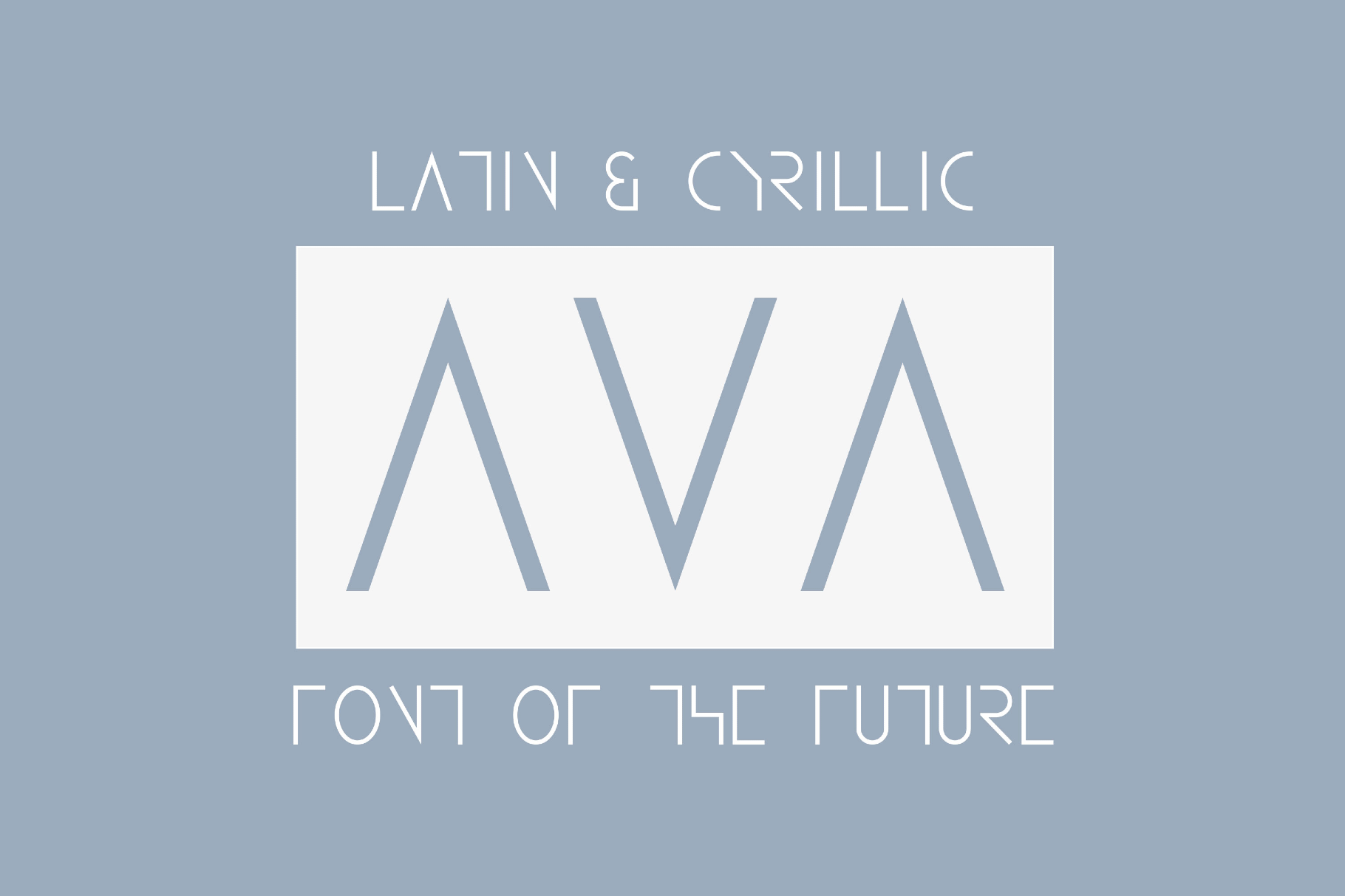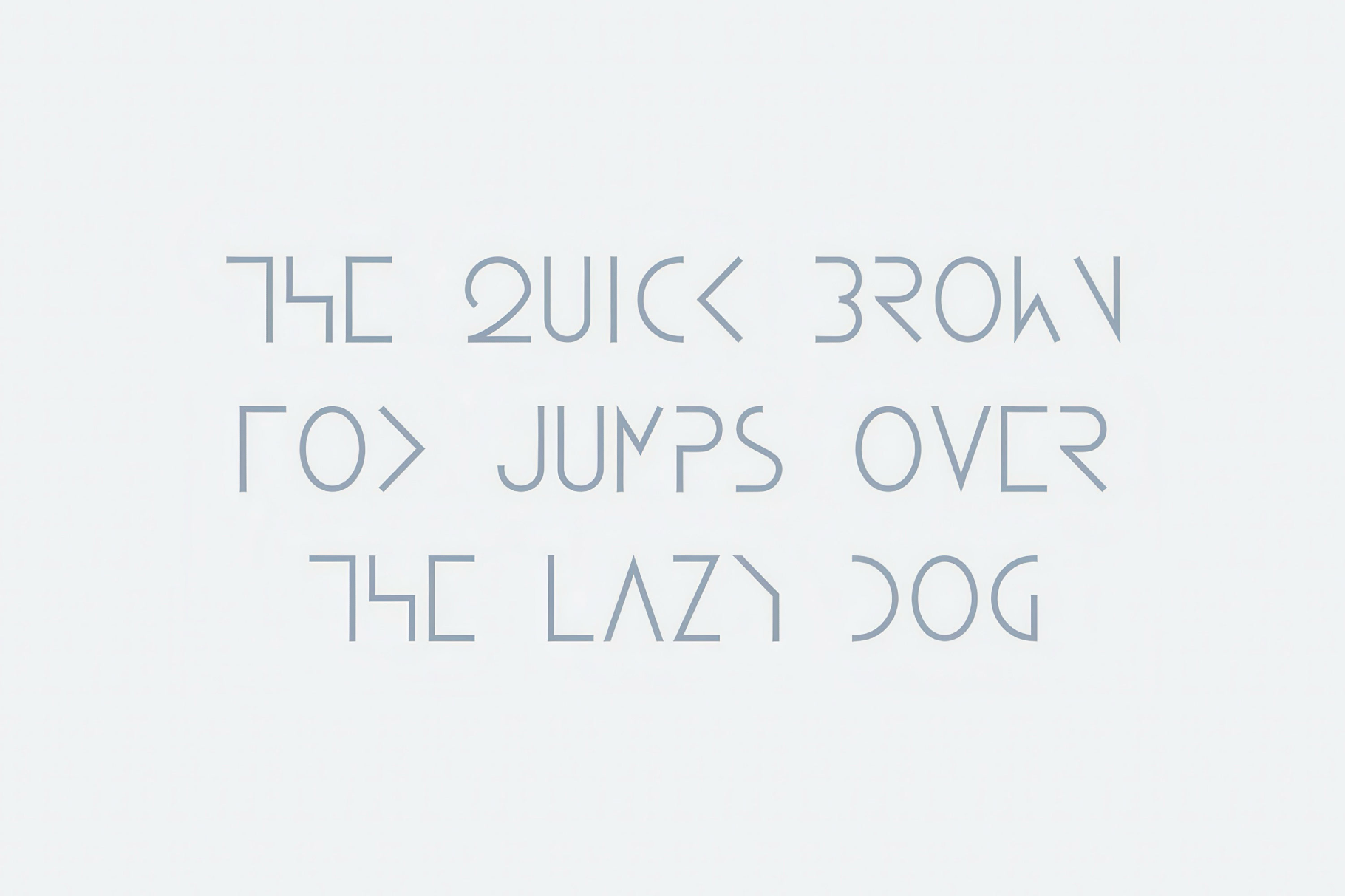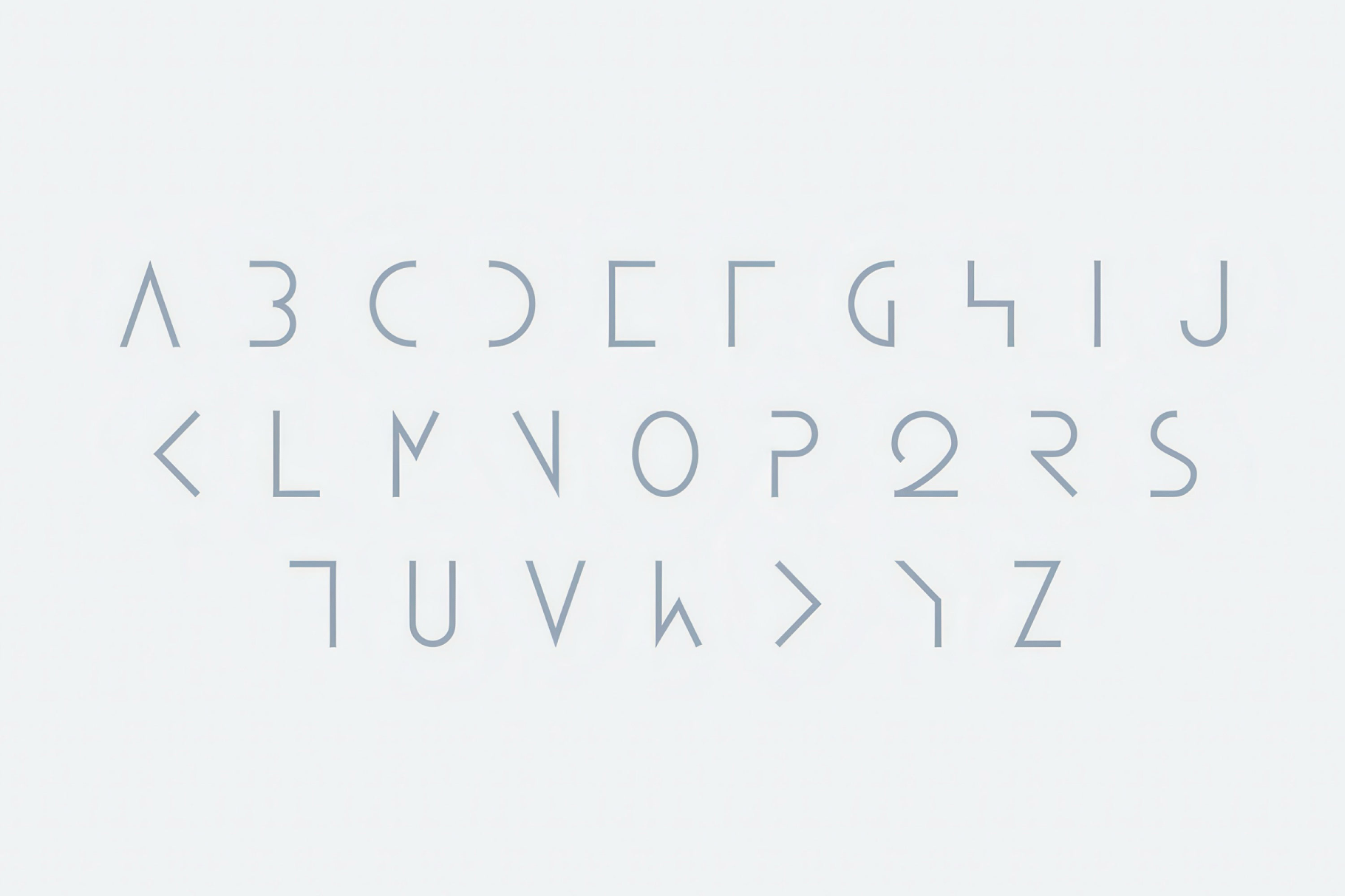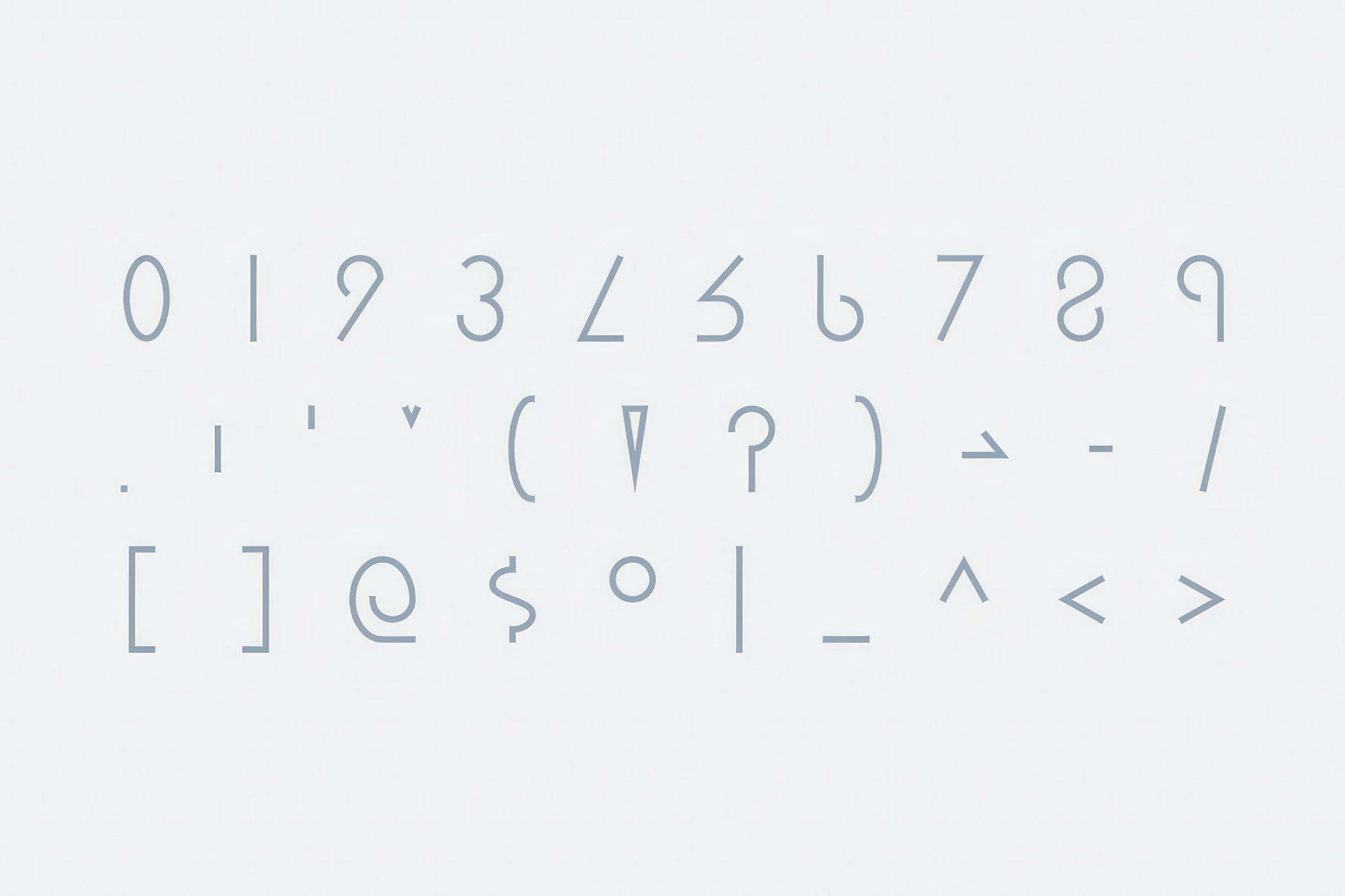
Ava - Space Tech Font
AVA
Ava echoes the visual language of cyberpunk anime and prototype-era electronics, pairing sharp contours with a metallic poise suited to a sealed habitat drifting somewhere beyond Earth. It belongs in title sequences, record sleeves, brand marks, UI concepts, promo posters, game interfaces, album covers, tech identities, event graphics, and packaging.
- uppercase letters;
- numbers, punctuation, and symbols;
- multilingual support across an extended Latin and Cyrillic scripts.